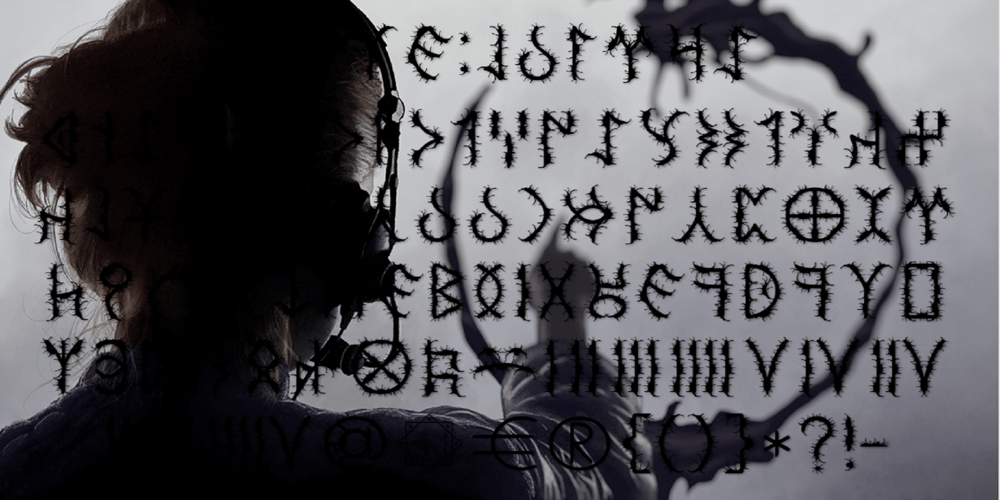
Ongunkan Old Turkic Arrival
Ongunkan  Old Turkic Arrival font
Ongunkan Old Turkic Arrival Font Family was designed by Osman Nuri ALKAN and published by Runic World Tamgacı. Ongunkan Old Turkic Arrival contains 1 styles and family package options. It’s the old Turkish runic script, which I adapted the written language of the three-legged aliens, the characters of a fantastic science fiction movie called Arrival.